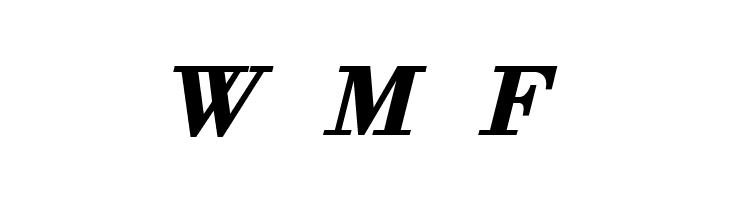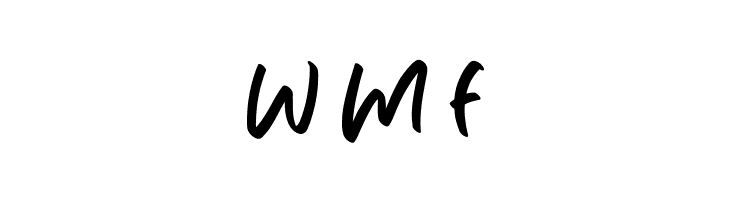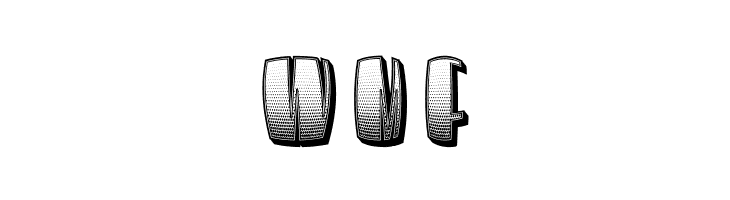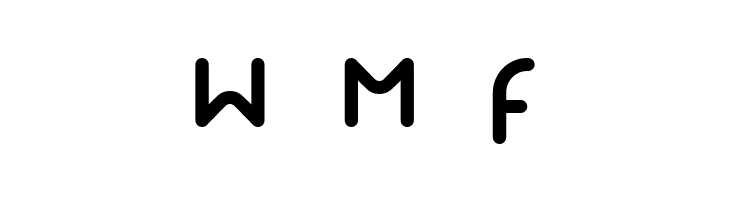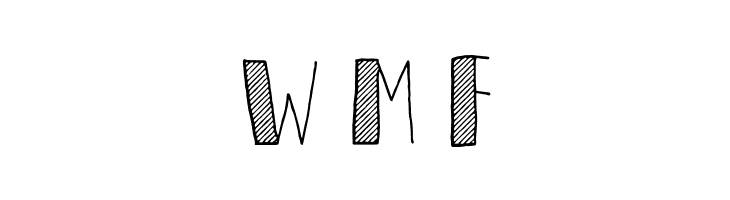
A bold, expressive handwritten font with fluid, dynamic strokes.
A bold, distressed font with an organic, rugged texture.
A decorative font with vine-like, organic letterforms.
A playful, hand-drawn font with a sketch-like, textured appearance.
A bold, retro 3D font with halftone interiors and thick outlines.
A classic serif font with elegant curves and moderate contrast.
A bold, classic serif font with strong, thick strokes and a modern twist.
A bold, italicized font with a strong and dynamic presence.